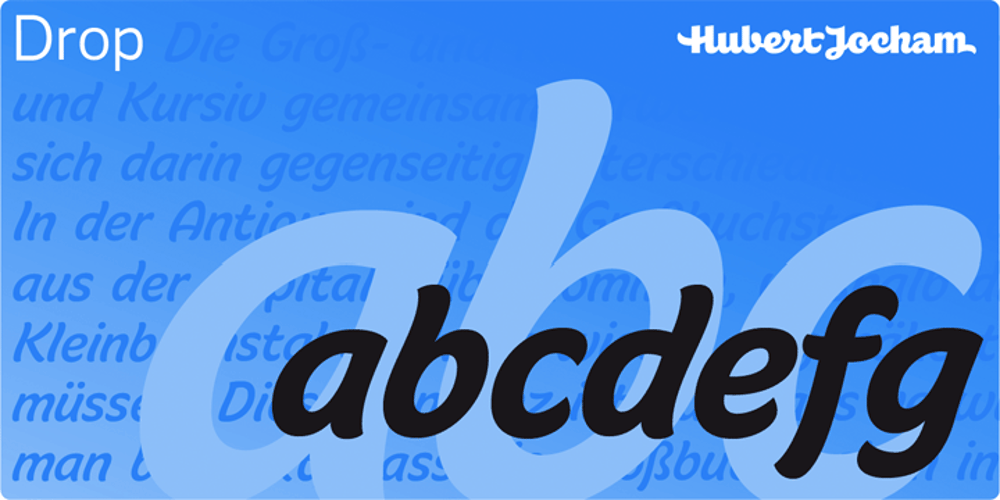
Drop Font Family was designed by Hubert Jocham and published by Hubert Jocham Type. Drop contains 5 styles and family package options. Drop is a brush script headline typeface. Ideal for food packaging and product branding.